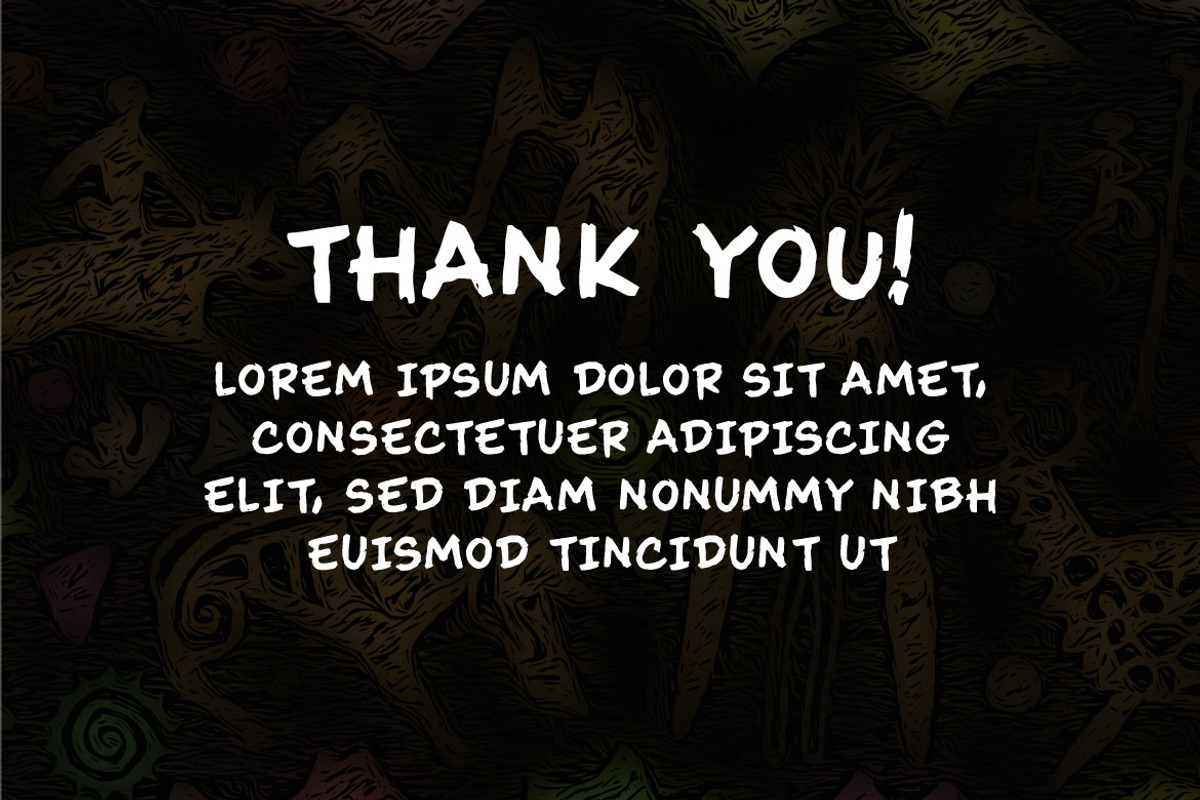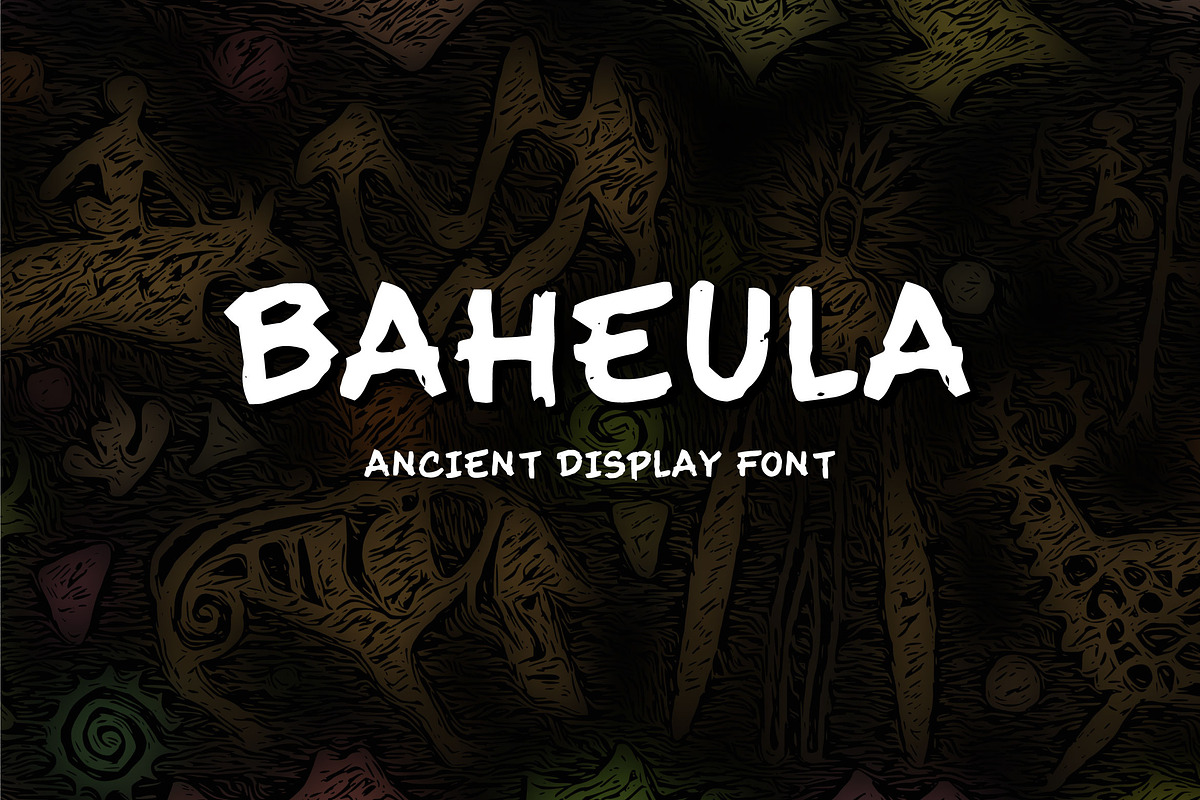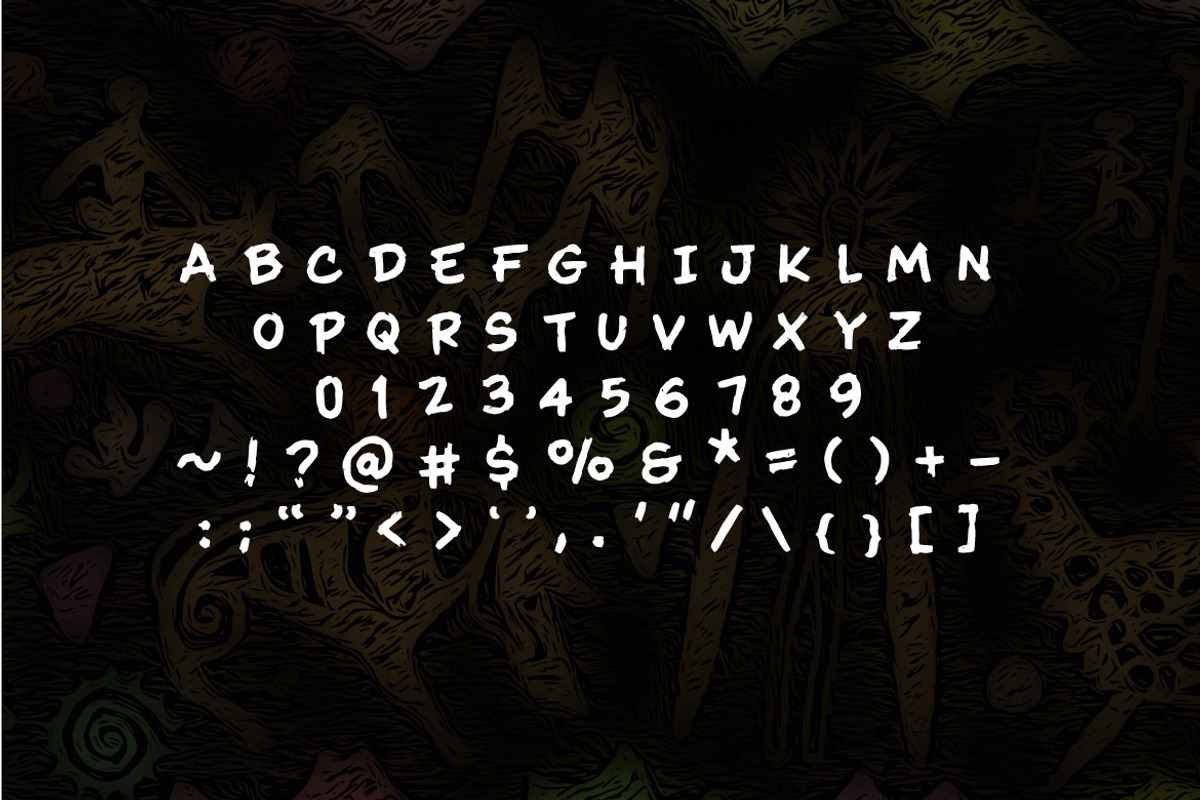
Baheula - Grunge Old Font
BAHEULA! is a display font which has old and ancient looks. This font suits perfectly in any works such as music cover, movie title, book title, magazine, poster, advertisement, social media content, logo and many more.